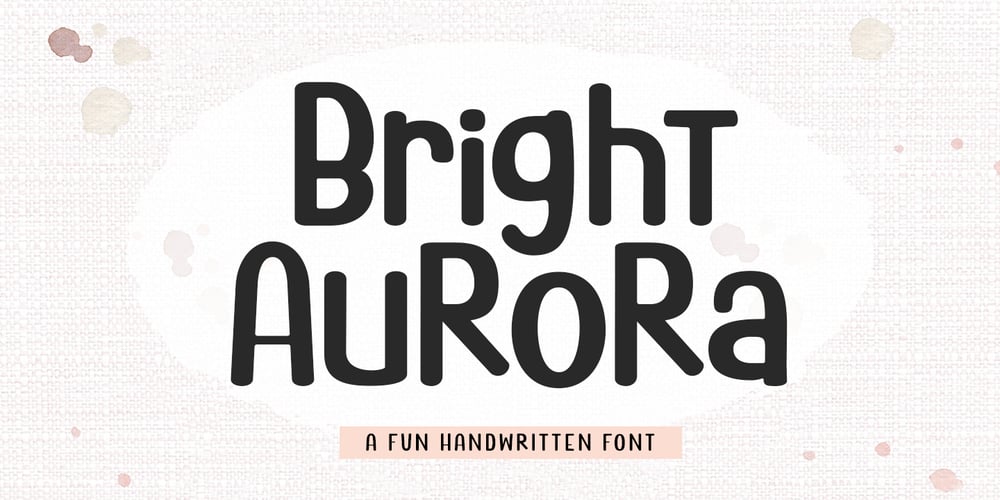
Bright Aurora
Bright Aurora font
Bright Aurora Font Family was designed by M Akmal and published by Mega Type. Bright Aurora contains 1 styles and family package options. INTRODUCINGBright Aurora is a fun handwritten font, Mix uppercase and lowercase for a fun and unique look!Bright Aurora is perfect for quotes, t-shirt designs, websites, branding, store brand, kids designs, svg designs, blogs, poster, logos, invitations and more!Have fun using Bright Aurora!!!Feel free to follow, like and share.Thank you very much for checking my store!